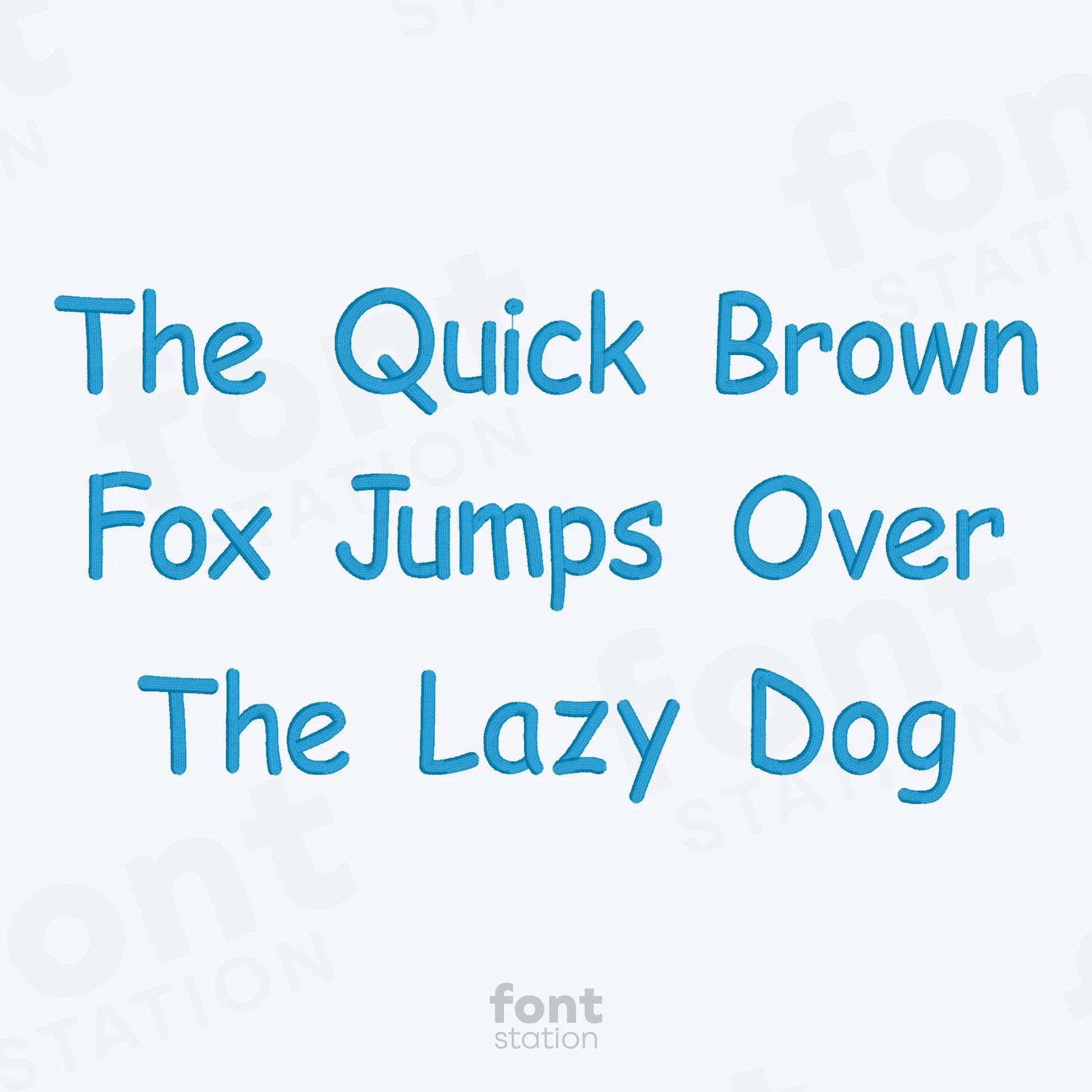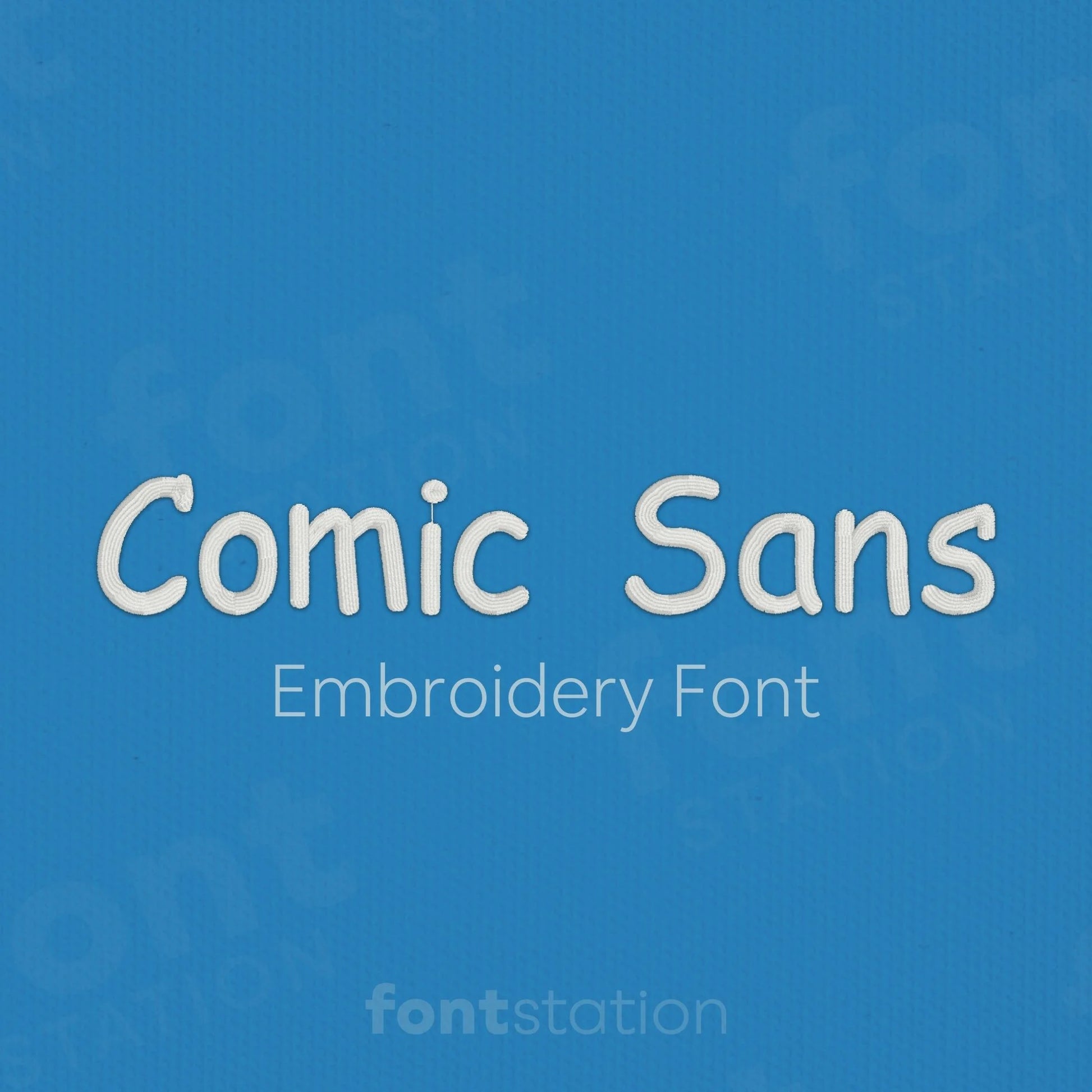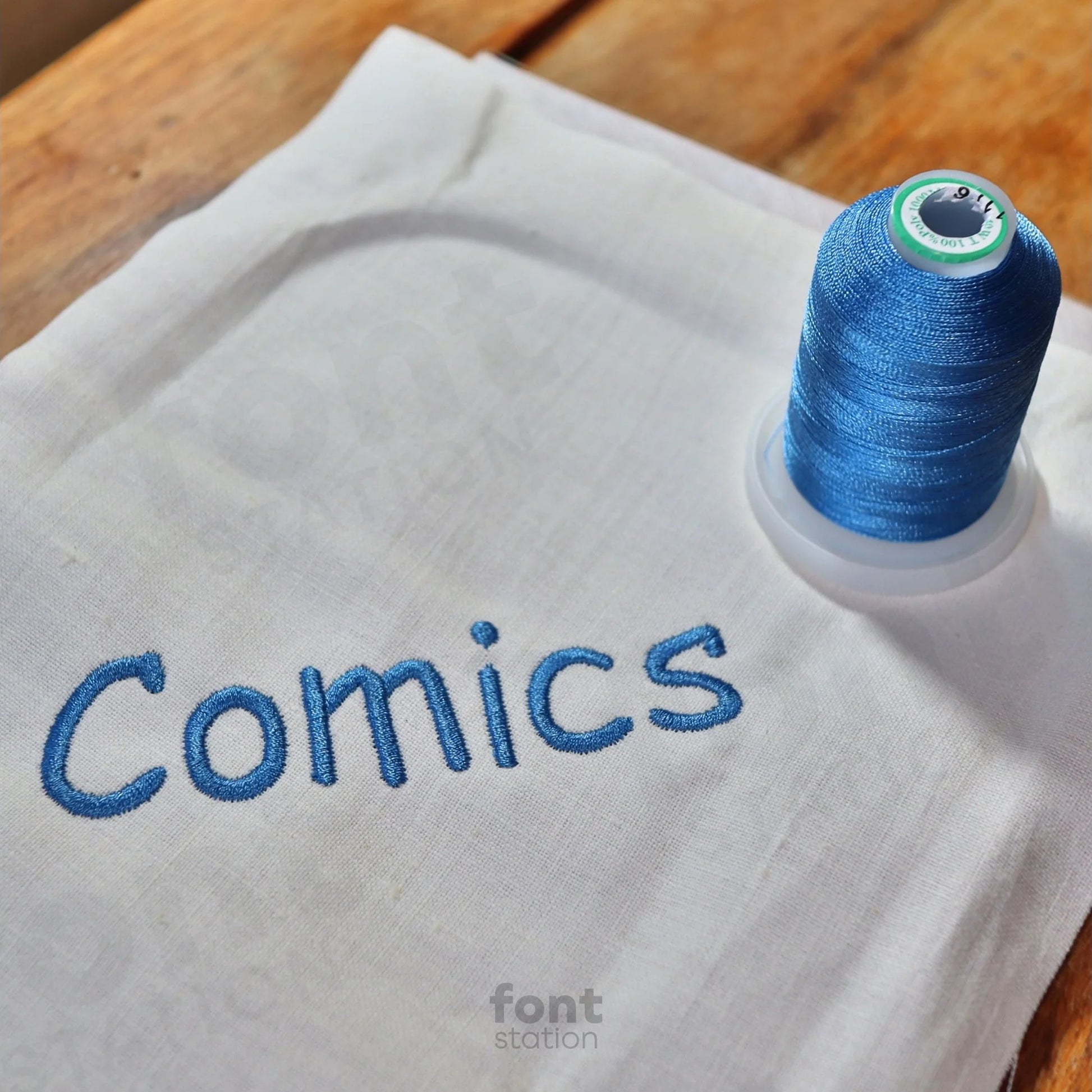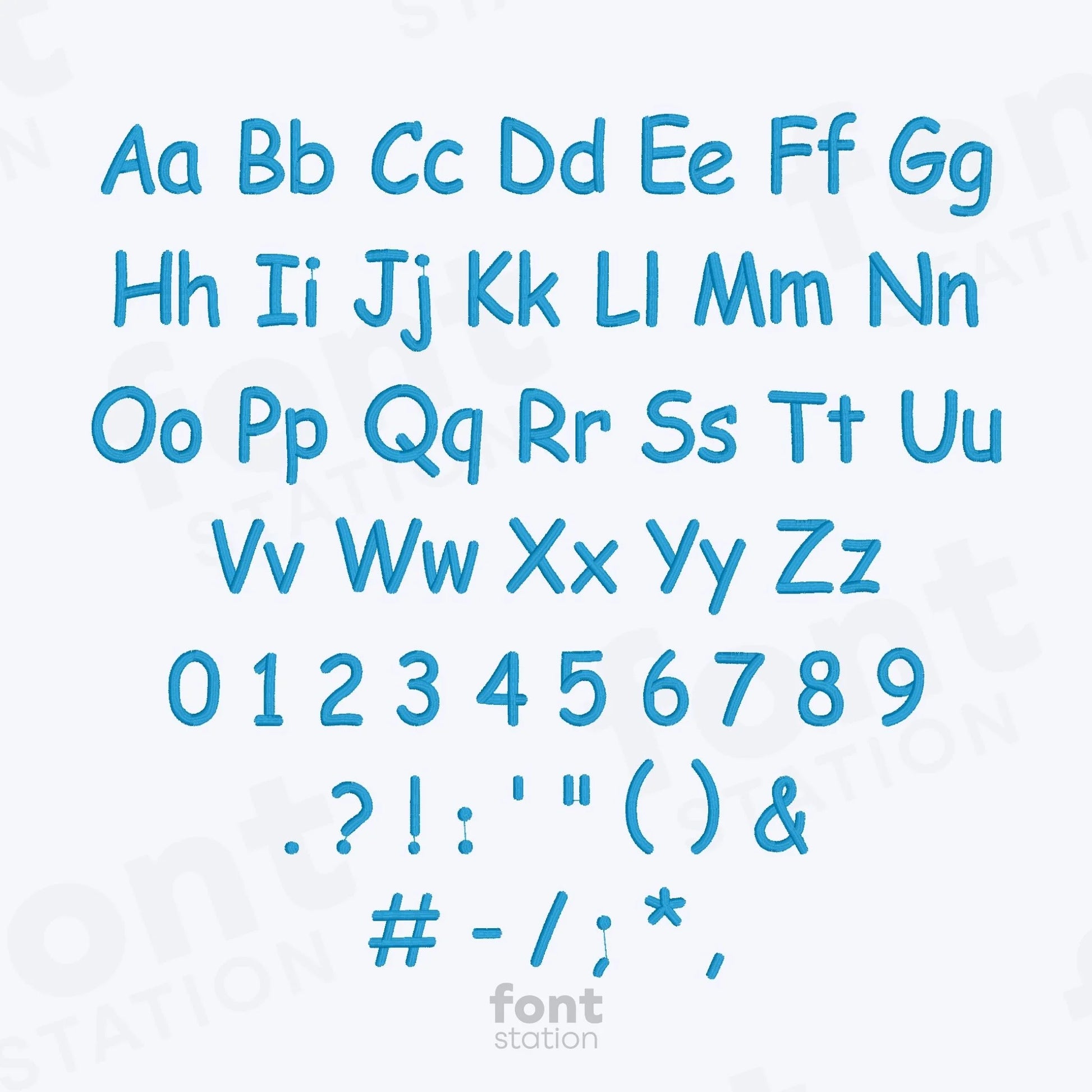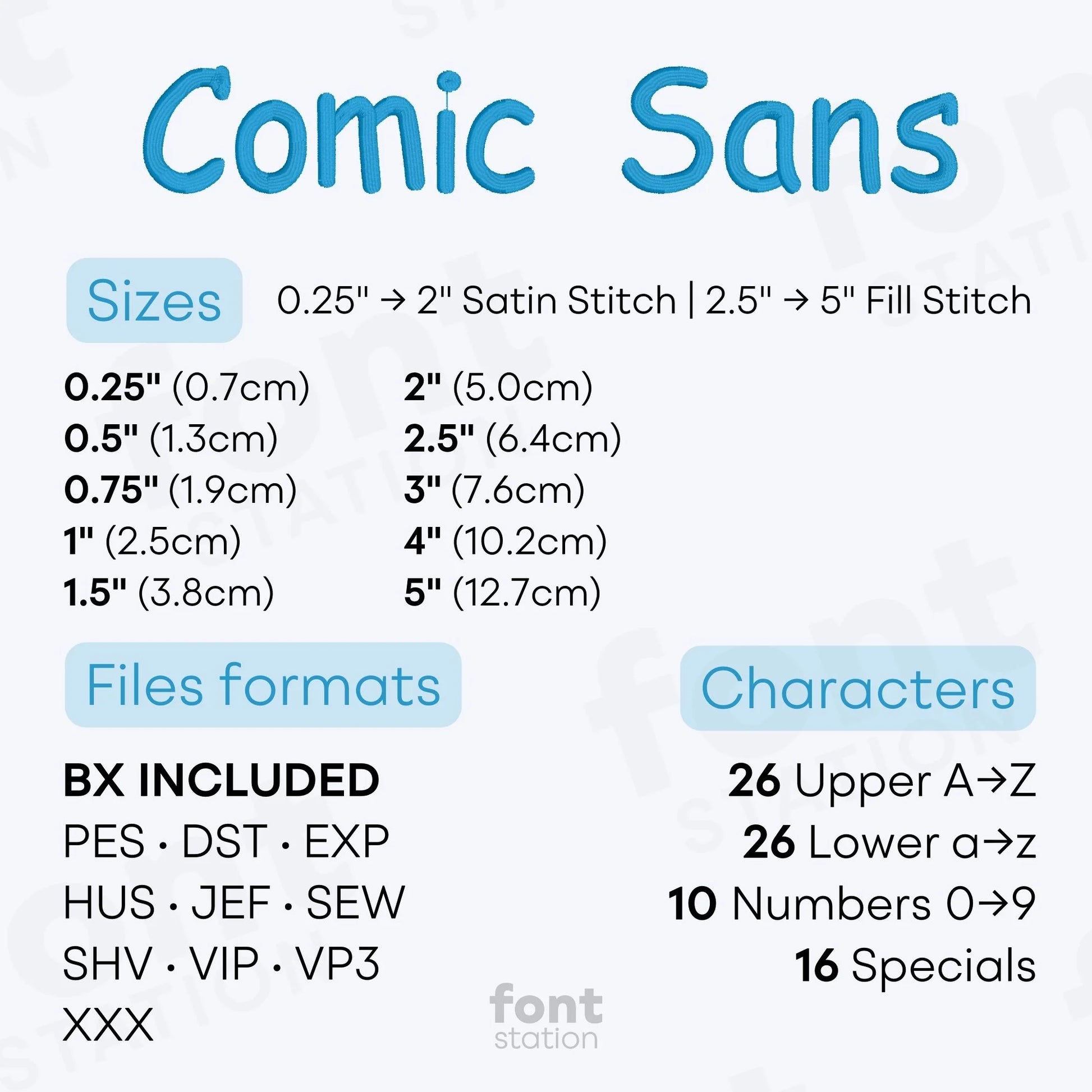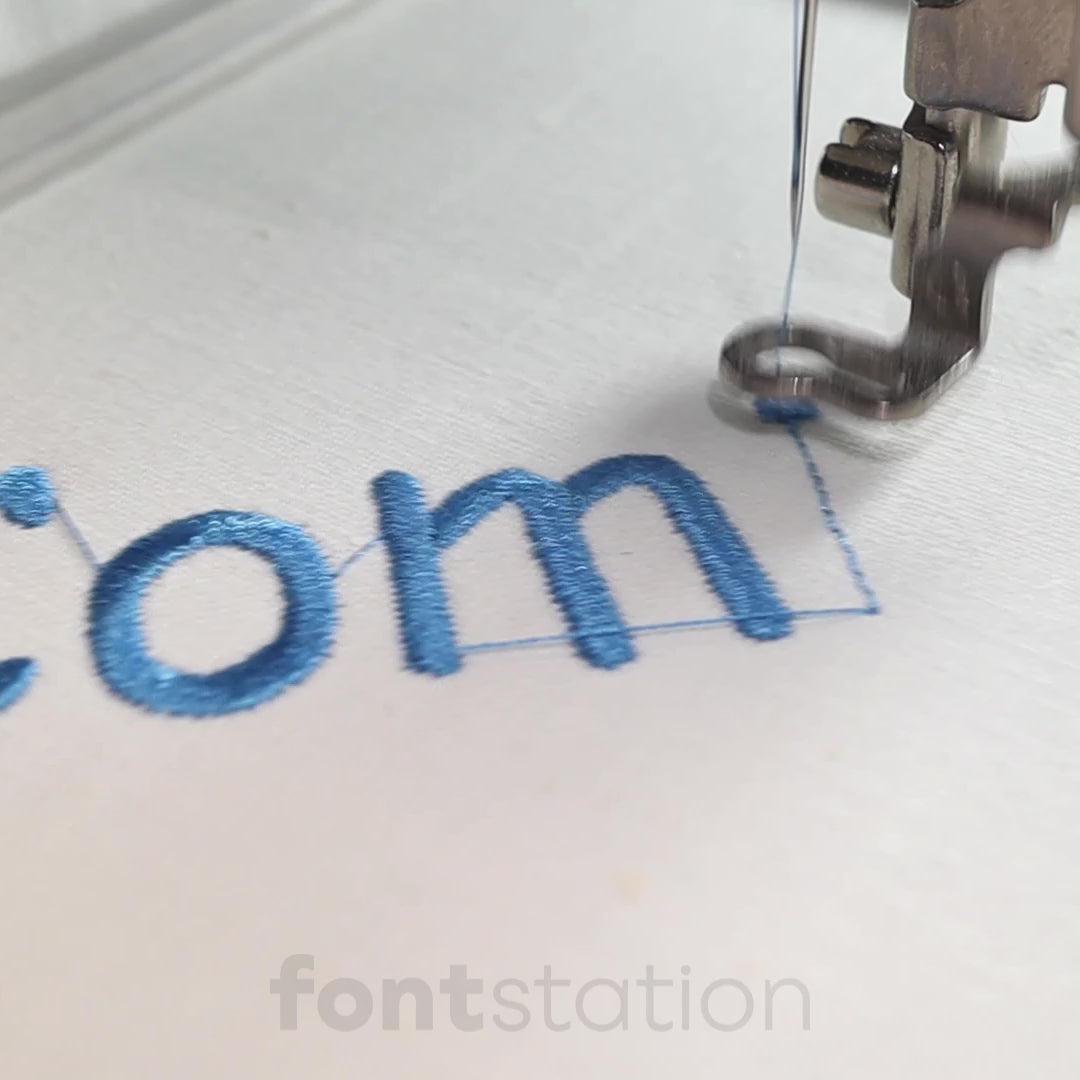
Comic Sans Embroidery Font
Our Comic Sans embroidery font is a playful alphabet perfect for any fun project. These rounded letters stitch smoothly on your embroidery machine for vibrant, comic-style designs.
About the Comic Sans Embroidery Font
Our Comic Sans embroidery font adds a playful, comic book style to your embroidery designs.
This fun and friendly Comic Sans embroidery alphabet features bold, rounded letters that are perfect for kids’ names, humorous sayings, and cheerful projects. Digitized for clean results and smooth stitching, these machine-ready embroidery letters work beautifully with any embroidery machine. Whether you're personalizing gifts or creating cartoon-style designs, this playful embroidery font delivers consistent results across a wide range of materials. Includes popular formats like BX, PES, DST, JEF, EXP, VP3, HUS, and XXX.